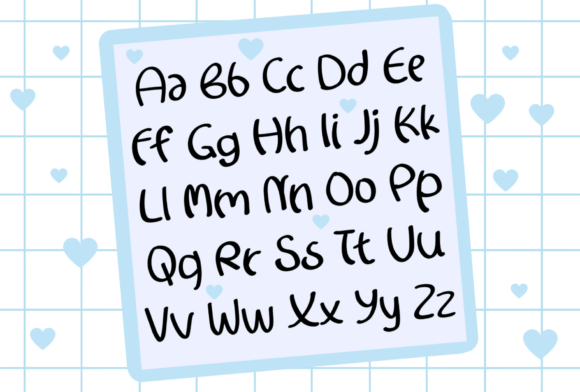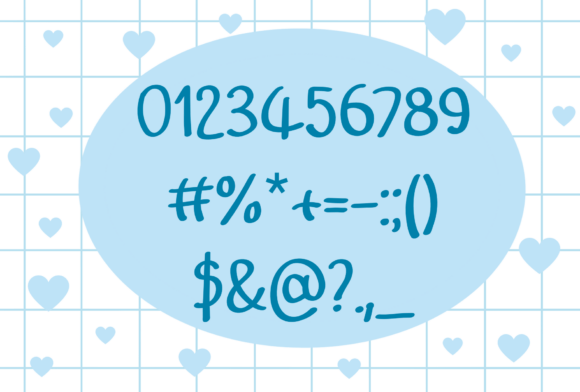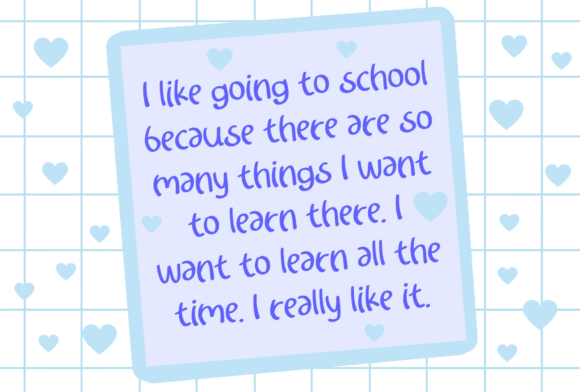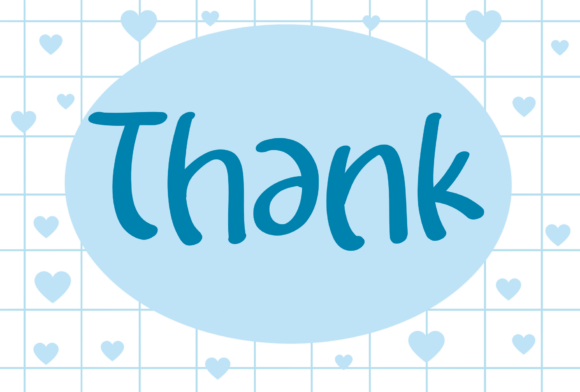
The Perfect Font for the Most Wonderful Time of the Year
As you sit down to plan your holiday designs, the pressure to create something truly special can be overwhelming. But what if you could tap into the magic of the season with a single click? For designers, finding the right font can make all the difference between a meh holiday card and a showstopper. And that’s exactly where Hello Good Boy Font comes in – a festive and happy typeface that captures the spirit of the holiday season.
With its decorative elements and unique flair, Hello Good Boy Font adds a touch of charm to your designs, making it perfect for greeting cards, gift labels, and holiday-themed projects. Whether you’re a seasoned designer or just starting out, this font brings a cheerful and nostalgic atmosphere to your words, making it a valuable addition to your design arsenal.
Hello Good Boy Font Key Features
- Unique Character Set: Hello Good Boy Font features a unique set of characters, including ligatures, swashes, and alternates, adding a touch of personality to your designs.
Hello Good Boy Font Review
When I first laid eyes on the Hello Good Boy Font, I was struck by its playful, approachable vibe. The font’s rounded edges and cheerful personality immediately captured my attention ✨. The font’s design seems to be tailored to appeal to a younger audience, making it perfect for children’s books, educational materials, and other projects that require a friendly, approachable tone.
The font’s versatility is another major plus ✨. It comes in a range of weights, from light to bold, allowing designers to easily adjust the font’s appearance to suit their project’s needs. Additionally, the font’s OpenType features enable designers to access a range of stylistic sets and ligatures, adding an extra layer of expressiveness to the font ✨.
However, there are a few limitations to consider ⚠️. The font’s design may not be suitable for projects that require a more formal or professional tone. Additionally, some users may find the font’s rounded edges and playful personality to be too juvenile for certain applications ⚠️.
Overall, I’d say that the Hello Good Boy Font is a solid choice for designers looking to add a playful touch to their projects. While it may not be suitable for every project, its versatility and friendly personality make it a great option for those who want to add a little whimsy to their design.
- Playful, approachable vibe
- Versatile range of weights and OpenType features
- Perfect for children’s books, educational materials, and other projects requiring a friendly tone
- May not be suitable for formal or professional projects
- Some users may find the font too juvenile for certain applications
The Hello Good Boy Font is a playful and whimsical font that is perfect for:
- Designing children’s products or packaging.
- Creating social media graphics or ads.
- Adding a touch of personality to your branding or marketing materials.
For the most effective use of the Hello Good Boy Font, be sure to use it in conjunction with other playful and colorful design elements.